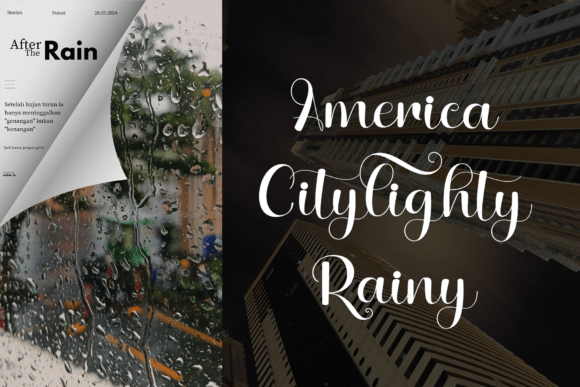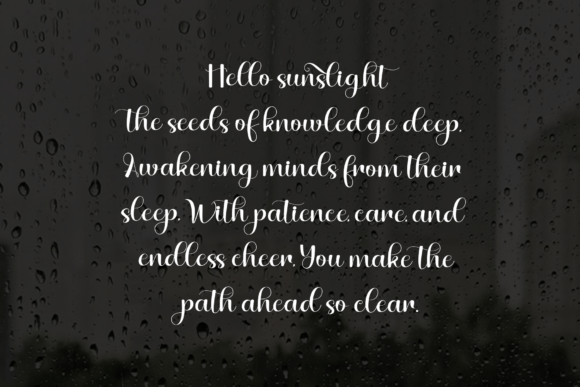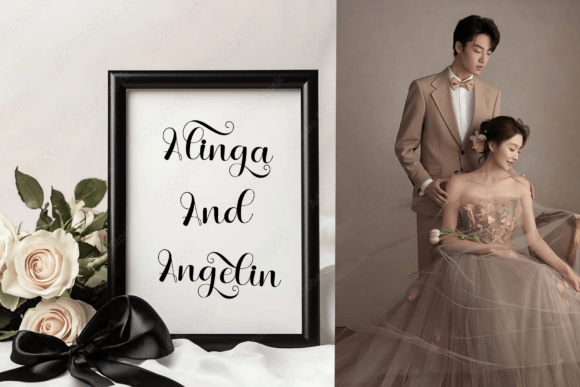
Introduction to Religi Font
Have you ever stared at a blank canvas, waiting for inspiration to strike? That’s where I was, trying to create the perfect logo for a client’s new business. The words ‘unique’ and ‘beautiful’ kept echoing in my mind as I searched for the perfect font. That’s when I stumbled upon Religi Font – a lovely and timeless handwritten font that has since become my go-to design resource.
Religi Font is a game-changer for designers like me, offering a high-quality, creative solution for any project. With its beautiful, handcrafted letters, this font brings a touch of elegance to even the simplest of designs. Whether you’re working on a logo, branding, or quote, Religi Font is sure to make your design come alive. And the best part? It’s available for free download, making it a valuable addition to any designer’s toolkit.
But what sets Religi Font apart is its versatility. Use it with a transparent background for a more modern look or pair it with a bold color for a statement piece. Whatever your creative vision, Religi Font is the perfect companion to bring your ideas to life.
Key Features of Religi Font
- High-quality design resource suitable for creative projects
- Features a transparent background, allowing for easy customization
- Unique, stylish design makes it perfect for modern and elegant projects
Honest Review: Religi Font
I recently had the chance to work with Religi Font on one of my creative projects, and I must say it’s been a game-changer. As a designer, I’m always on the lookout for high-quality design resources that can elevate my work, and Religi Font definitely fits the bill.
Here are some things that work well with Religi Font:
- Its unique and elegant design makes it perfect for a variety of creative projects, from typography-based art to branding materials.
- The transparent background makes it easy to use on any design element, without worrying about distracting backgrounds.
- The font is highly customizable, allowing me to experiment with different styles and effects.
That being said, I did encounter a few limitations:
- The font doesn’t have a wide range of weights or styles, which can limit its versatility in certain projects.
Overall, I’m really impressed with Religi Font. It’s a great addition to any designer’s toolkit, and I highly recommend it for any creative project that requires a high-quality, elegant font.
Religi Font: A High-Quality Design Resource
Religi Font is a versatile and creative project that offers a high-quality design resource for your next project. With its elegant and modern style, this font is perfect for a wide range of applications, from branding to editorial design.
Religi Font is perfect for a wide range of applications, including branding, editorial design, and creative projects. With its transparent background and high-quality design, this font is sure to elevate your designs and leave a lasting impression.
Tips for Getting the Most Out of Religi Font
To get the most out of Religi Font, use it in combination with other design elements, such as images and graphics, to create a visually appealing design. Experiment with different font sizes, colors, and styles to find the perfect combination for your project.